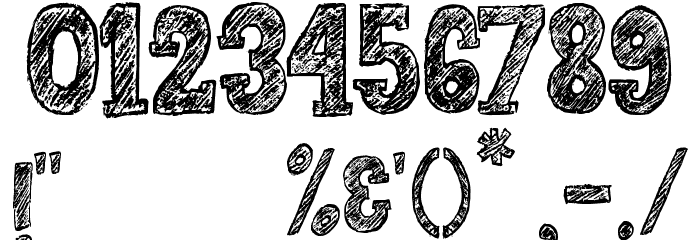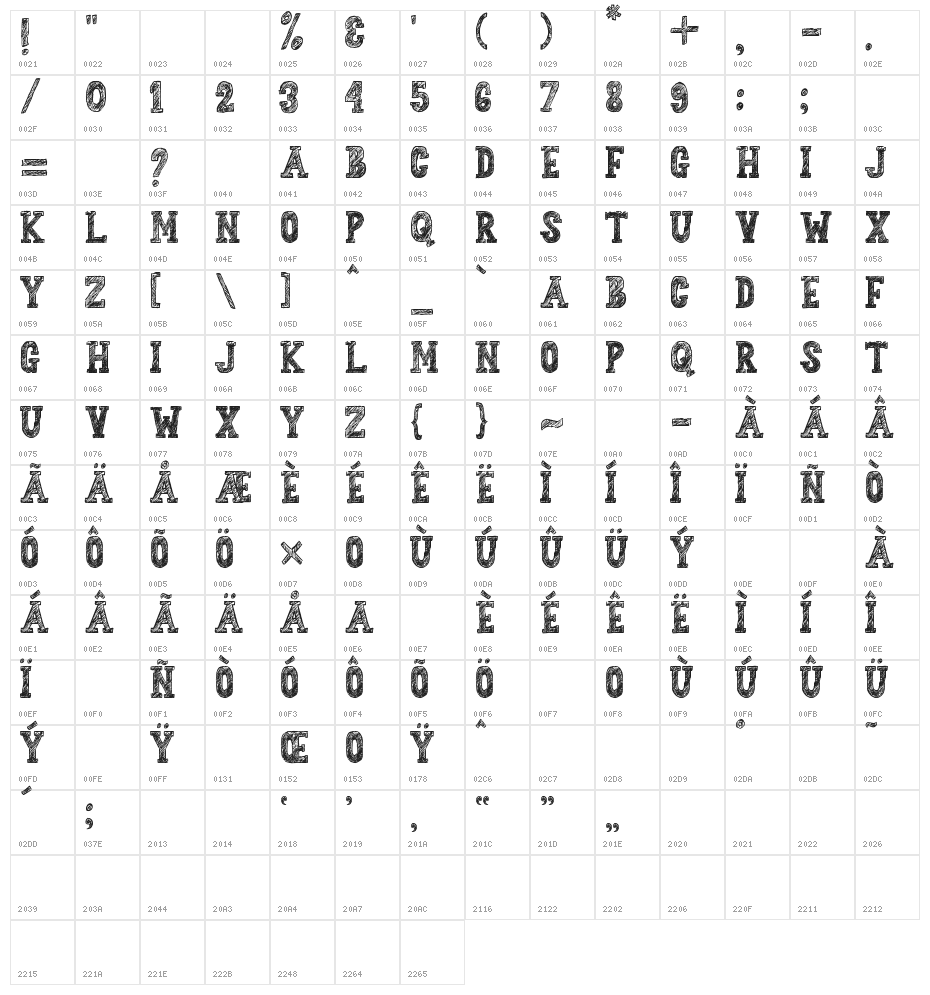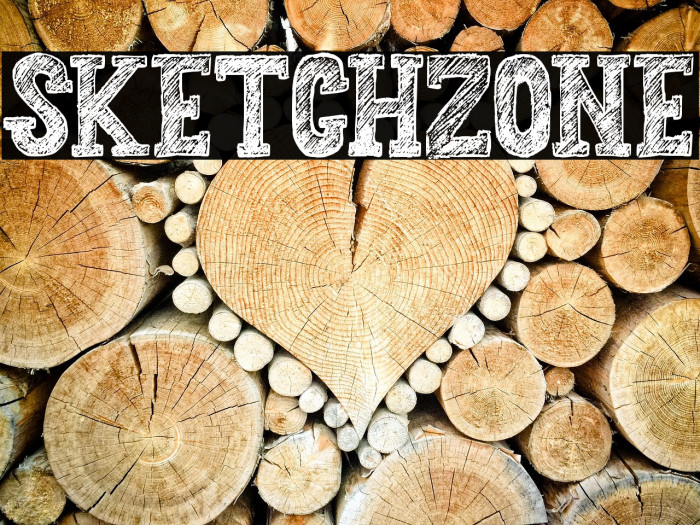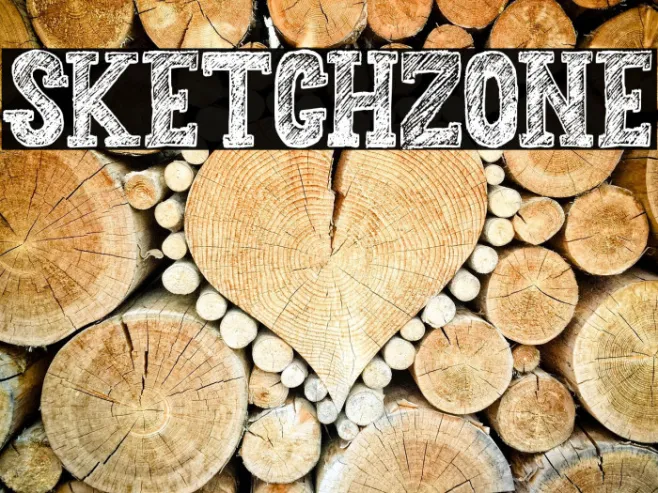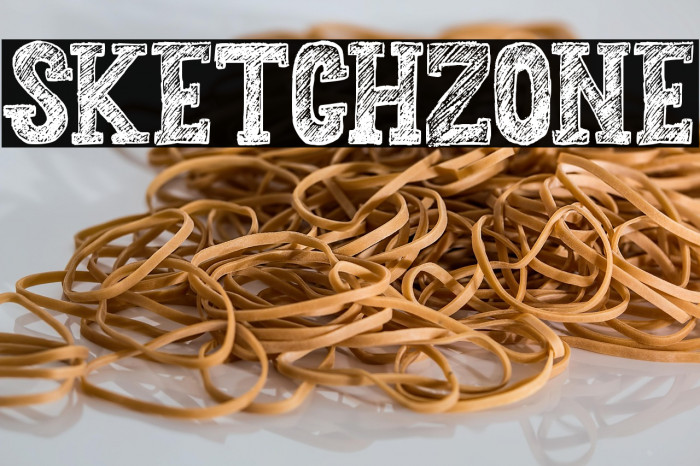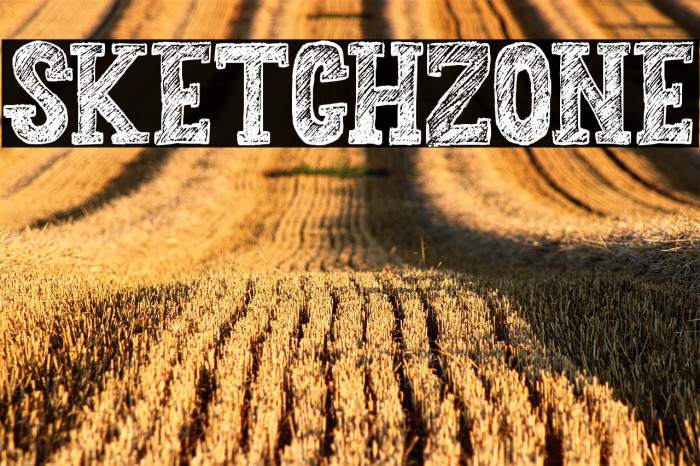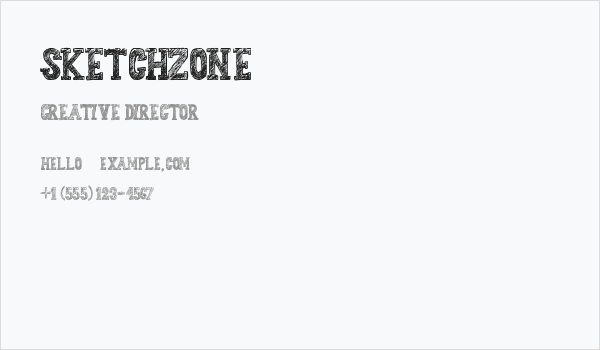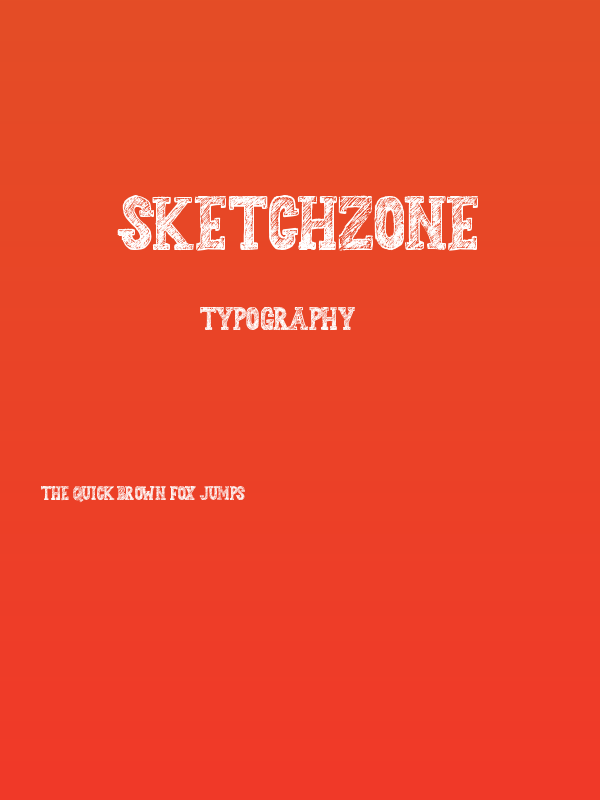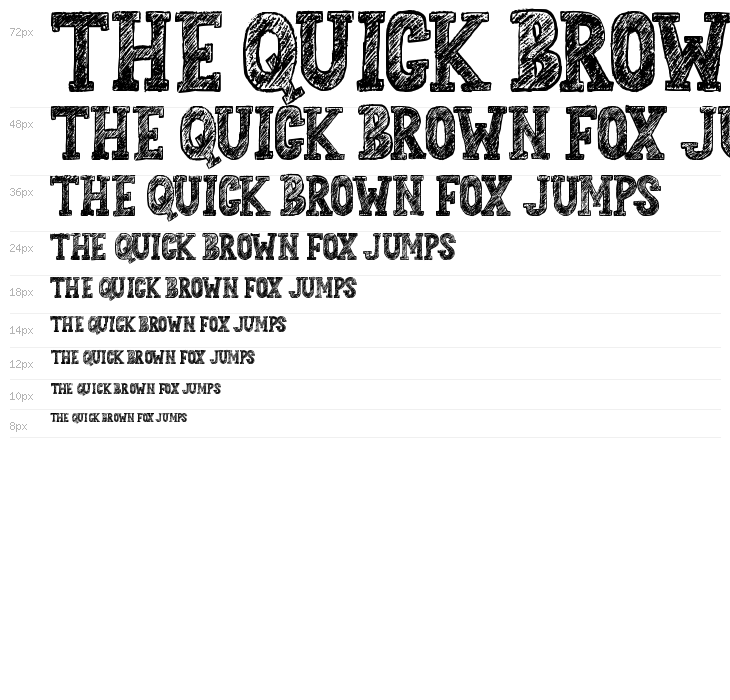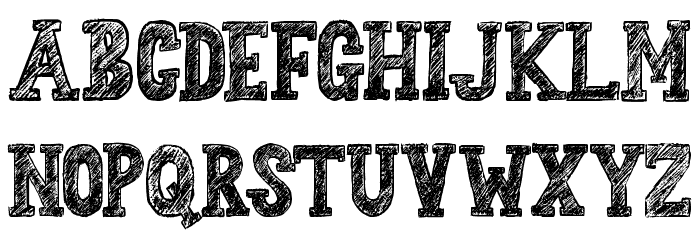
Sketchzone Font
Sketchzone Description
This font features a distinctive hand-drawn style that mimics the appearance of chalk or pencil sketches. Each character is filled with intricate, textured lines that give it a rough, artistic look. The uppercase and lowercase letters maintain a consistent design, with bold, blocky shapes that stand out. The numbers and special characters follow the same sketchy aesthetic, ensuring a cohesive appearance across all elements. This font's unique style makes it ideal for creative projects that require a playful or informal touch.
| Proposed Projects | Ideal for creative projects such as posters, children's books, educational materials, and artistic branding. |